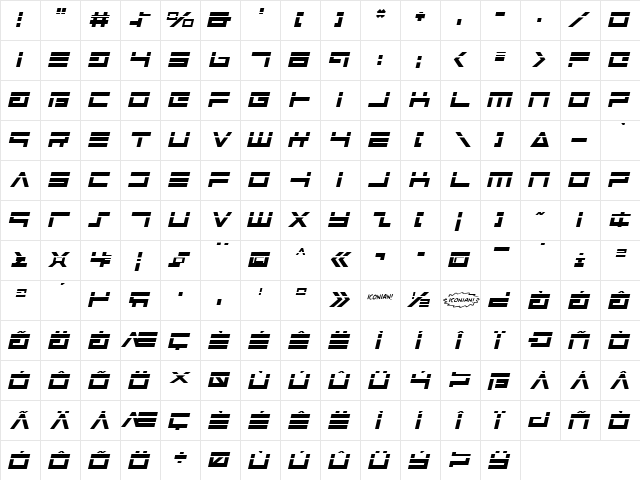
Avenger Laser Italic Italic
Design Context for Avenger Laser Italic Typeface
Avenger Laser Italic is a composed and adaptable typeface that performs quietly and consistently across a wide range of design contexts. The slanted form adds forward momentum and visual energy.
Pro Tip: Use Avenger Laser Italic for emphasis, pull quotes, and subheadings where its slanted energy can add rhythm to the layout.